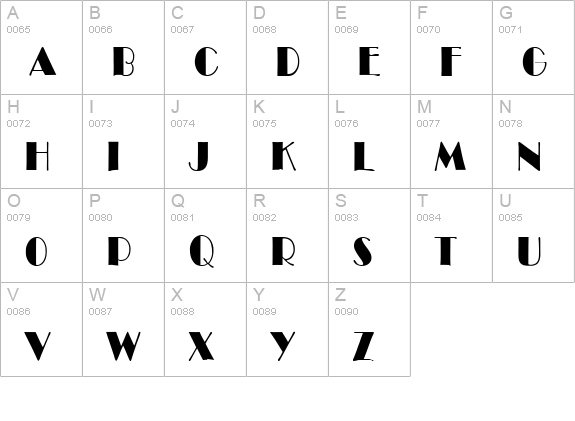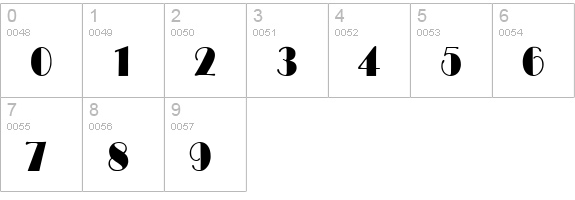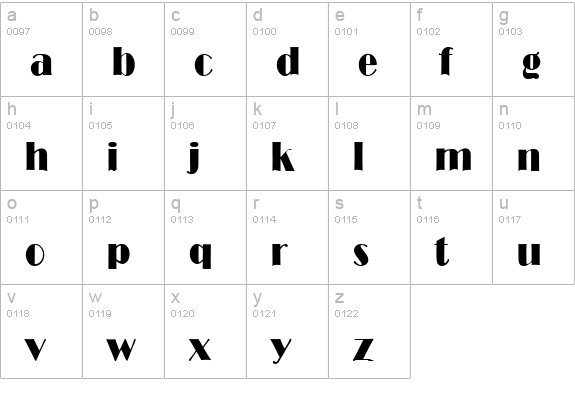
Fitzgerald Regular Font Details
Fitzgerald Regular is the standard, neutral variant in the Fitzgerald typeface family \xE2\x80\x94 well suited to general body text, paragraphs, and standard typographic work.
Fitzgerald Regular font is a classic and elegant typeface that exudes sophistication and charm. With its timeless design and clean lines, this font is perfect for a wide range of projects, from branding and logos to invitations and stationery. What sets Fitzgerald Regular apart is its versatility and readability, making it a great choice for both print and digital applications. Whether you're designing a sleek corporate brochure or a stylish wedding invitation, this font will add a touch of refinement to your creations. Best of all, Fitzgerald Regular is available for free download at FontsMarket.com. So go ahead and elevate your designs with this beautiful and timeless font today!